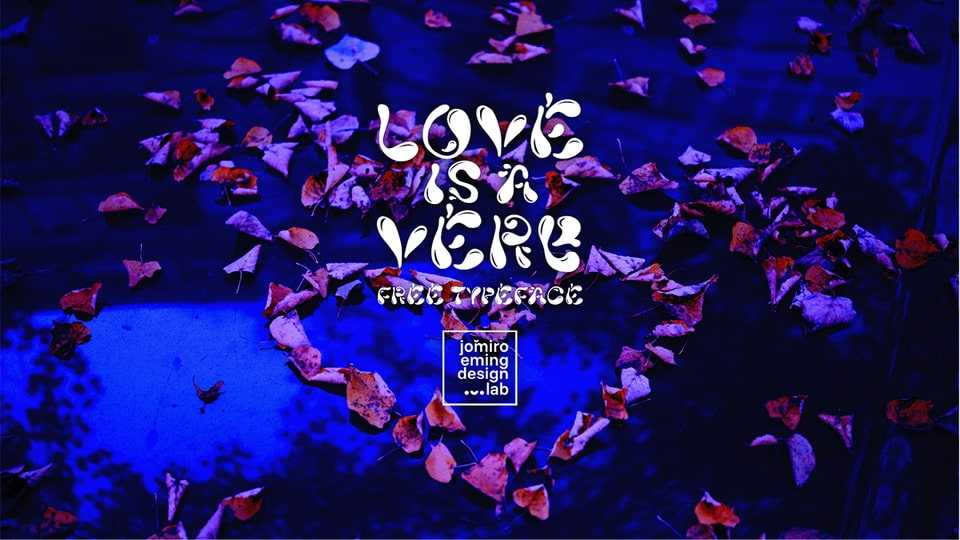
Download Love is a Verb font, a decorative, hand-crafted typeface that captures the essence of love through a unique blend of smooth, fluid shapes and organic curves.
Designer: Jomiro Eming